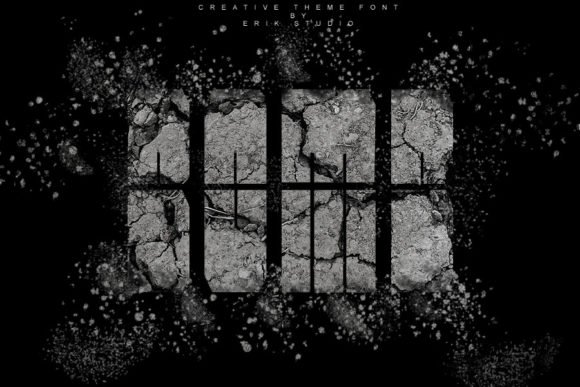
The Perfect Font for Making a Statement
There’s something about staring at a blank canvas, or a blank document, that can be both exhilarating and intimidating. The possibilities are endless, but the pressure to create something amazing can be overwhelming. That’s where the right font can make all the difference.
Enter Bomb Font, a thick lettered, robotic display font that’s sure to inspire your next creation. With its sharp, cool design, Bomb Font is perfect for making a statement and grabbing attention. Whether you’re a graphic designer, artist, or writer, this font is a valuable addition to your toolkit.
So why is Bomb Font so valuable for designers? For starters, it’s incredibly versatile – use it for headings, titles, or even entire paragraphs to add some serious punch to your work. With Bomb Font, the possibilities are truly endless.
Bomb Font Key Features
- Font Family: Bomb Font is a sans-serif font family designed for digital use.
- Character Set: Includes a wide range of characters, including Latin, Cyrillic, and Greek alphabets, as well as punctuation and symbols.
- Unique Characteristics: Bomb Font features a distinctive, bold, and modern design with a large x-height, making it highly legible in digital environments.
Bomb Font Review
At first glance, Bomb Font seems like an exciting and bold choice for any design project. Its unique blend of futuristic and industrial elements makes it perfect for creating a modern and edgy aesthetic ✨. The font’s irregular shapes and varied line widths add to its dynamic feel, making it ideal for headings and titles ✨.
- Perfect for creating a modern and edgy aesthetic
- Great for headings and titles due to its bold and dynamic feel
- Unique blend of futuristic and industrial elements
However, there are some limitations to consider ⚠️. The font’s irregular shapes can sometimes make it difficult to read, especially in smaller sizes ⚠️. Additionally, the font’s industrial feel may not be suitable for all design projects, particularly those with a more traditional or elegant aesthetic ⚠️.
Overall, Bomb Font is a great choice for designers who want to add a modern and edgy touch to their projects ✨. While it may have some limitations, its unique and bold design makes it a great option for creatives who want to stand out from the crowd.
Tips for Getting the Most Out of Bomb Font
Use Bomb Font to add a bold, edgy feel to your designs. It pairs well with minimalist and modern designs. To get the most out of Bomb Font, experiment with different font sizes, colors, and styles to create a unique look.
Bomb Font is commonly used in:
– Modern and minimalist designs
– Edgy and bold designs
– Headings and titles
Alternatives to Bomb Font for Designers
Bomb Font is a sans-serif font known for its clean and modern appearance. However, it may not be the best choice for every project. Here are some alternatives:
Montserrat is a geometric sans-serif font designed for digital use. It is a great choice for modern and minimalist designs. When to use: Use Montserrat for digital projects, such as websites and mobile apps, where a clean and modern look is desired. Compared to Bomb Font: Montserrat has a more geometric feel and a larger x-height, making it more suitable for digital use.
Open Sans is a modern sans-serif font designed for digital use. It is highly legible and versatile, making it a great choice for a wide range of projects. When to use: Use Open Sans for digital projects, such as websites and mobile apps, where a clean and modern look is desired. Compared to Bomb Font: Open Sans has a more rounded feel and a larger x-height, making it more suitable for digital use.